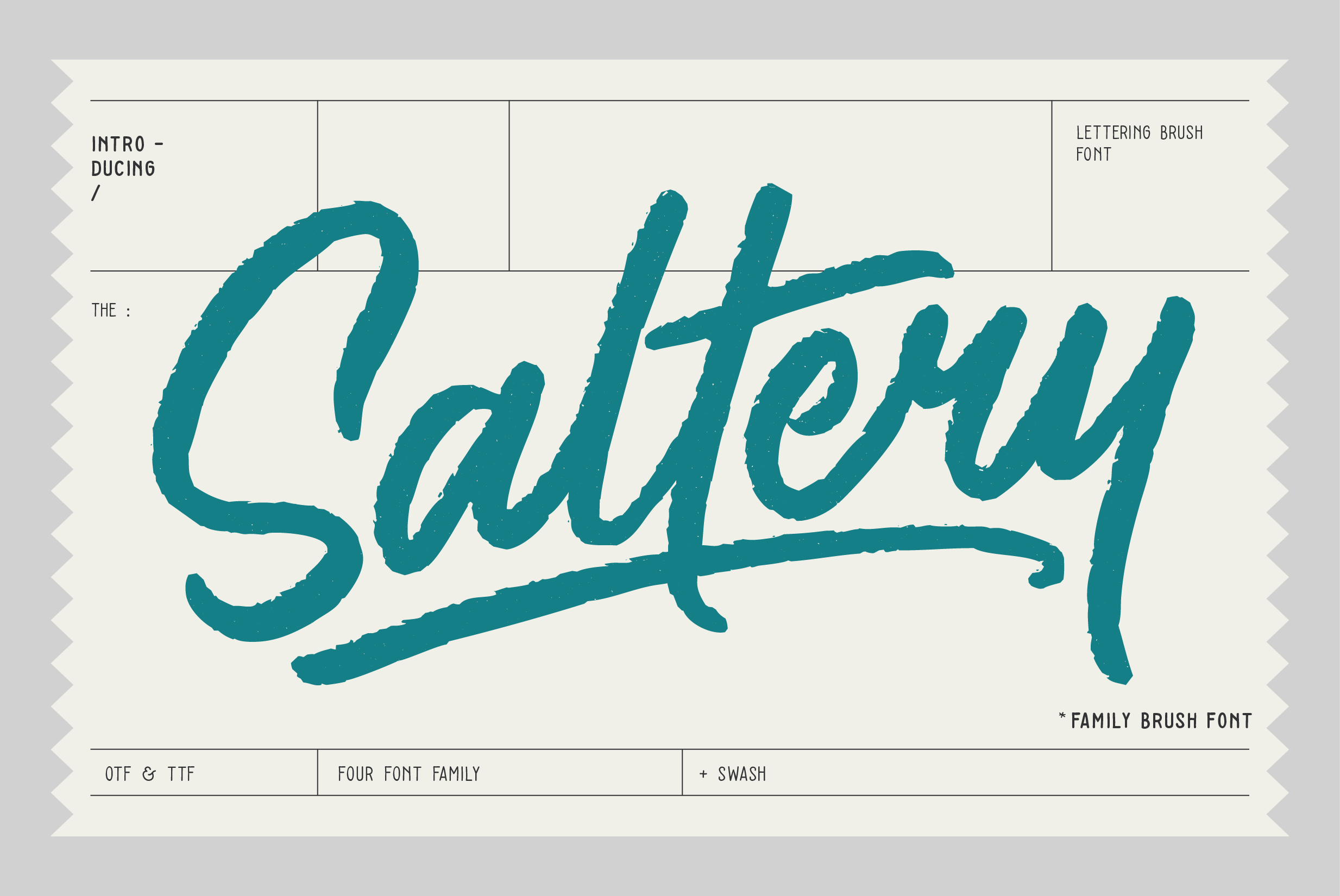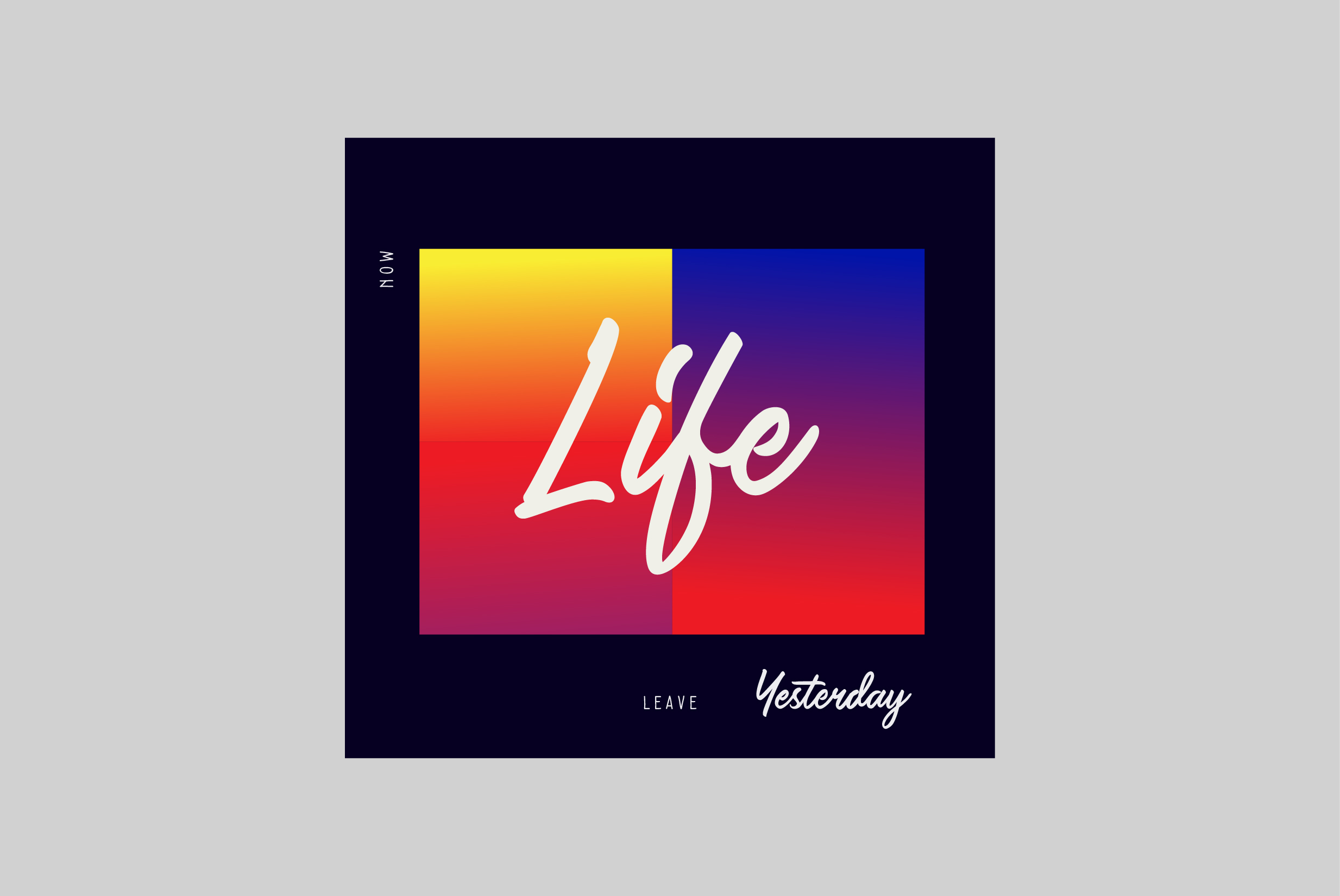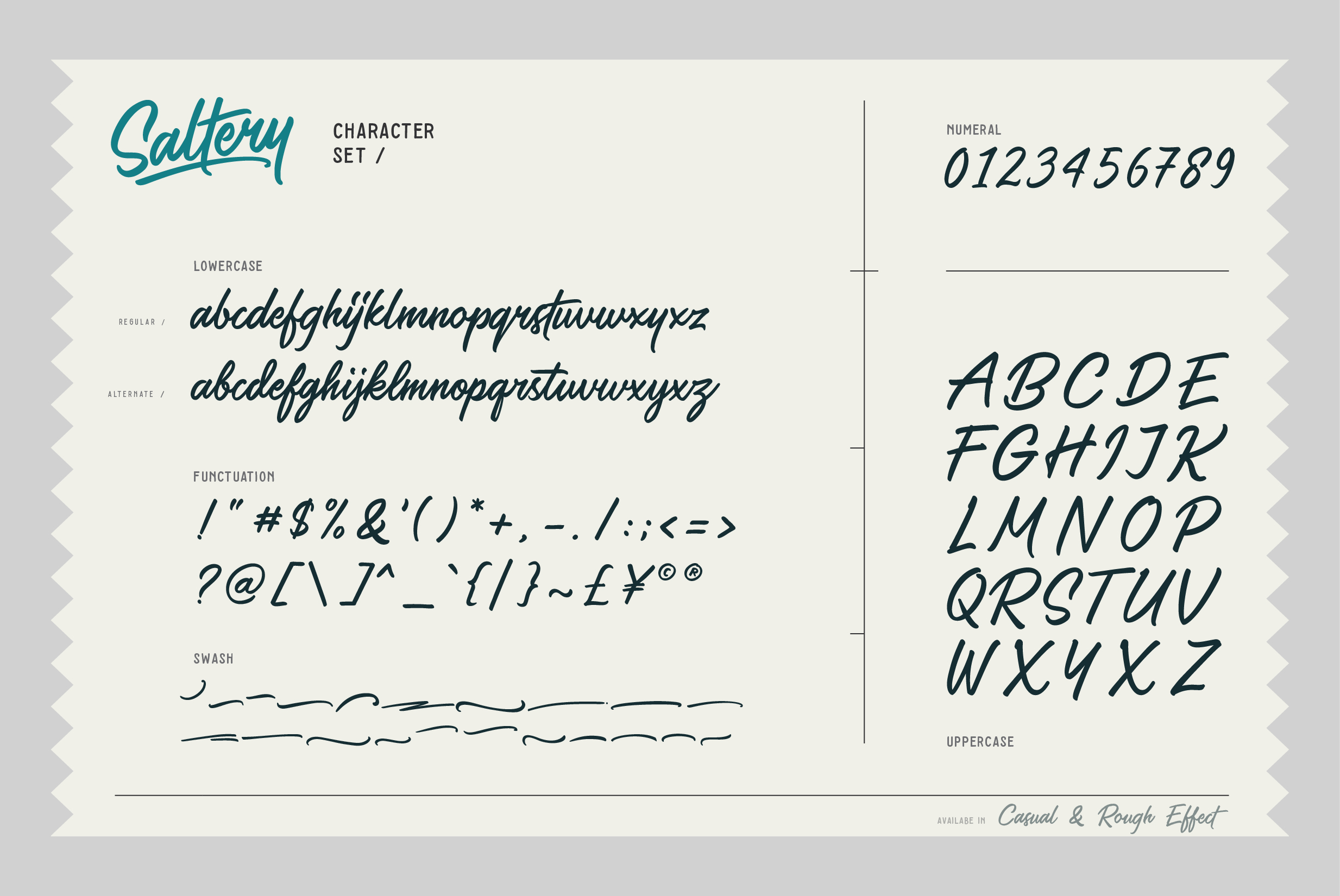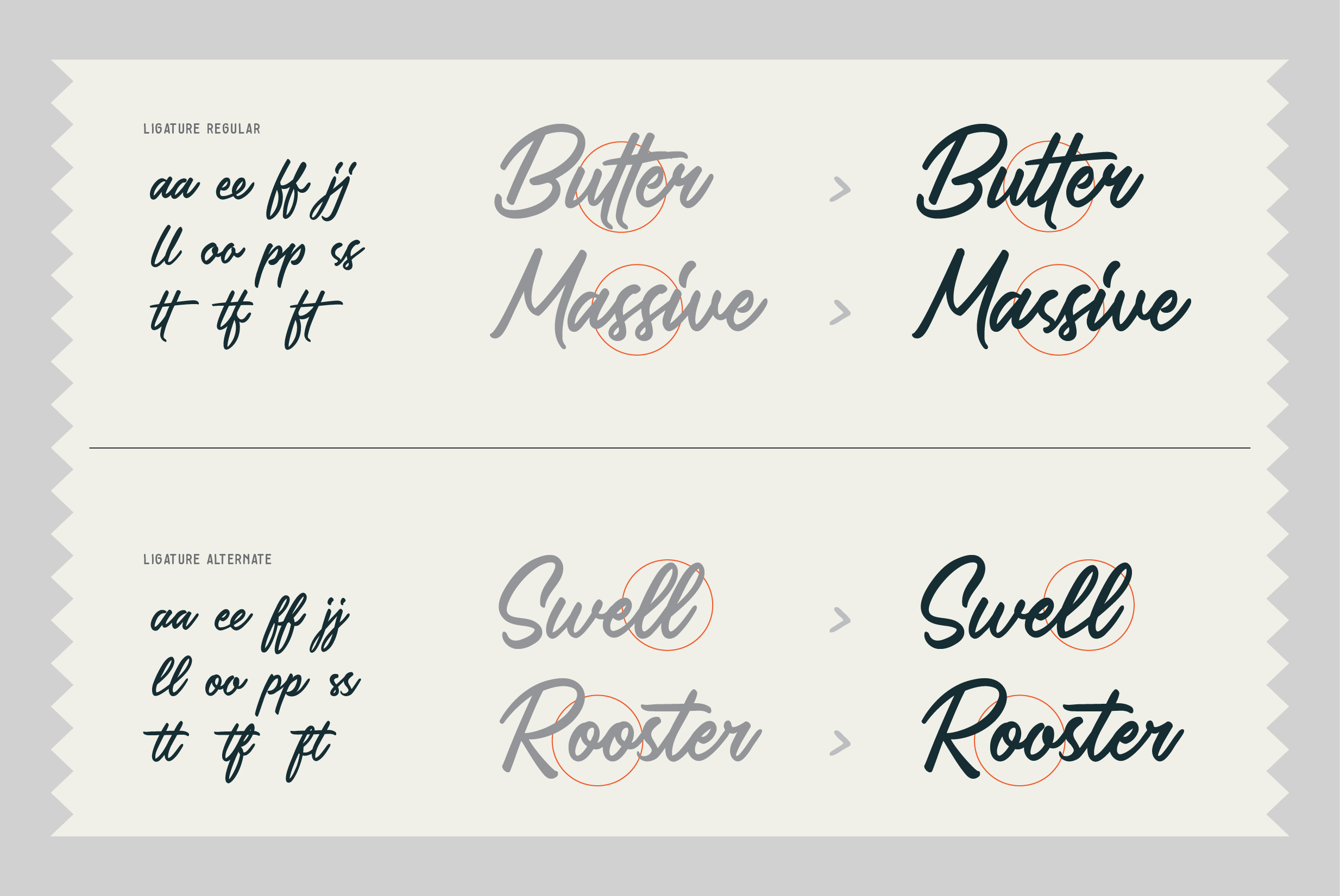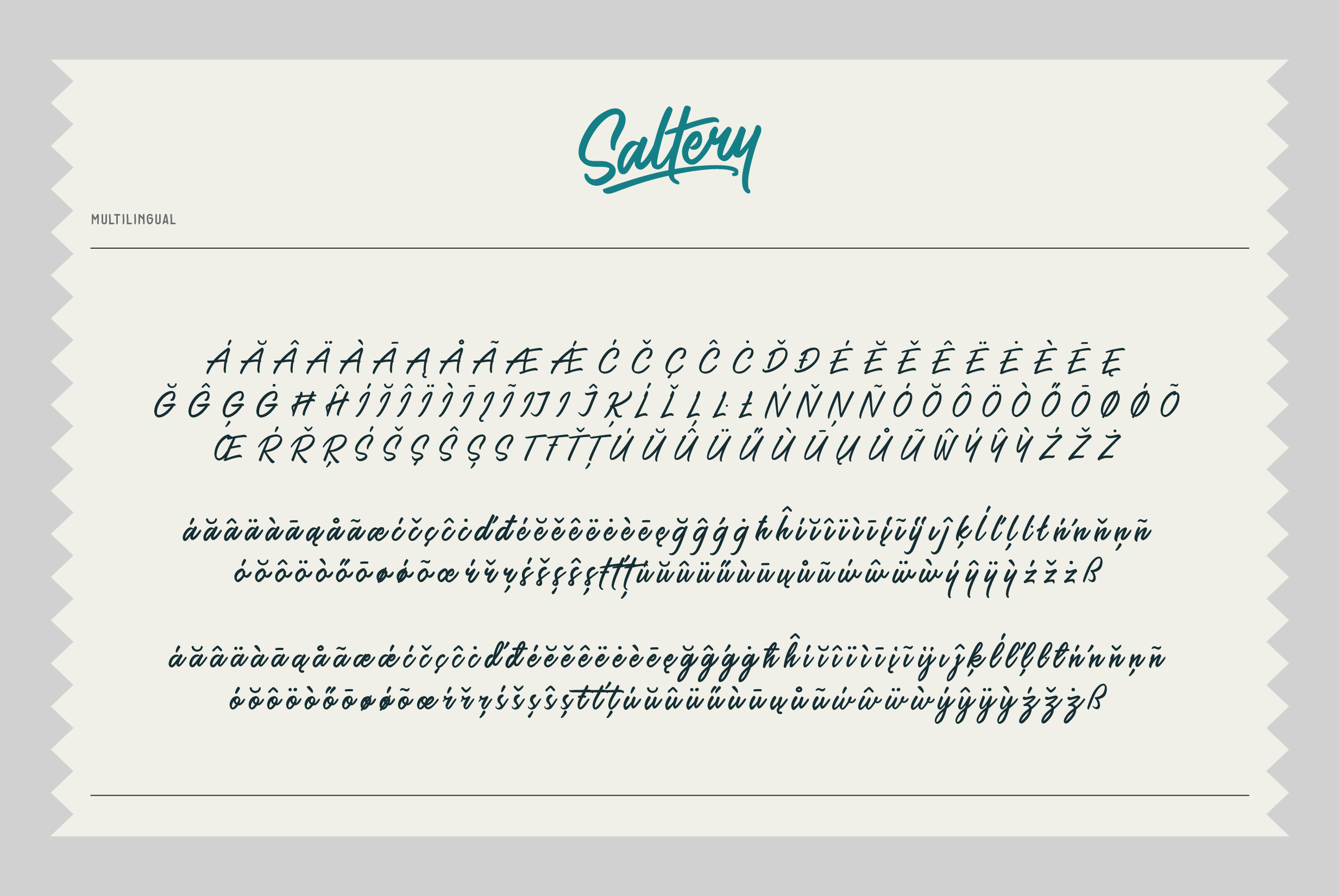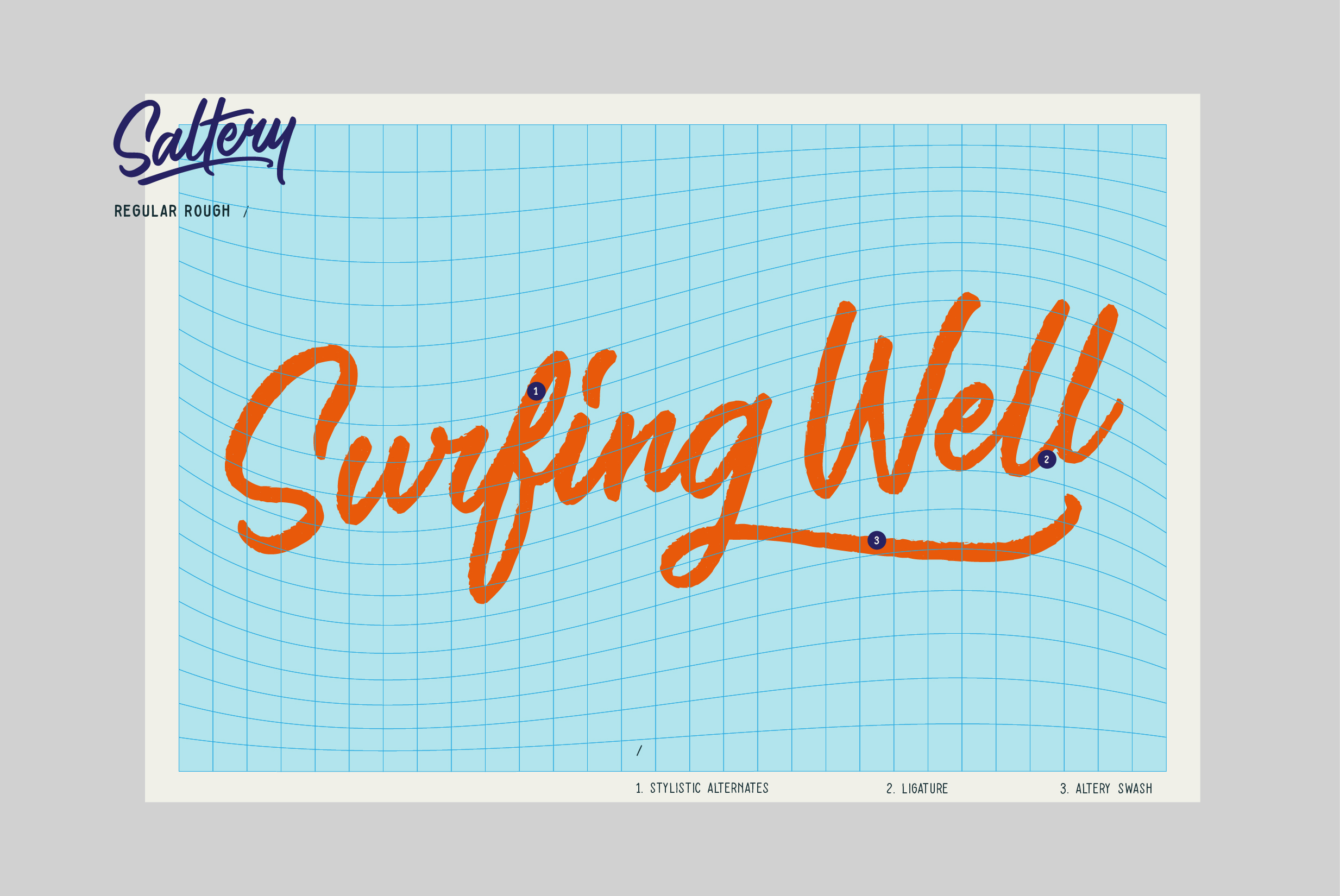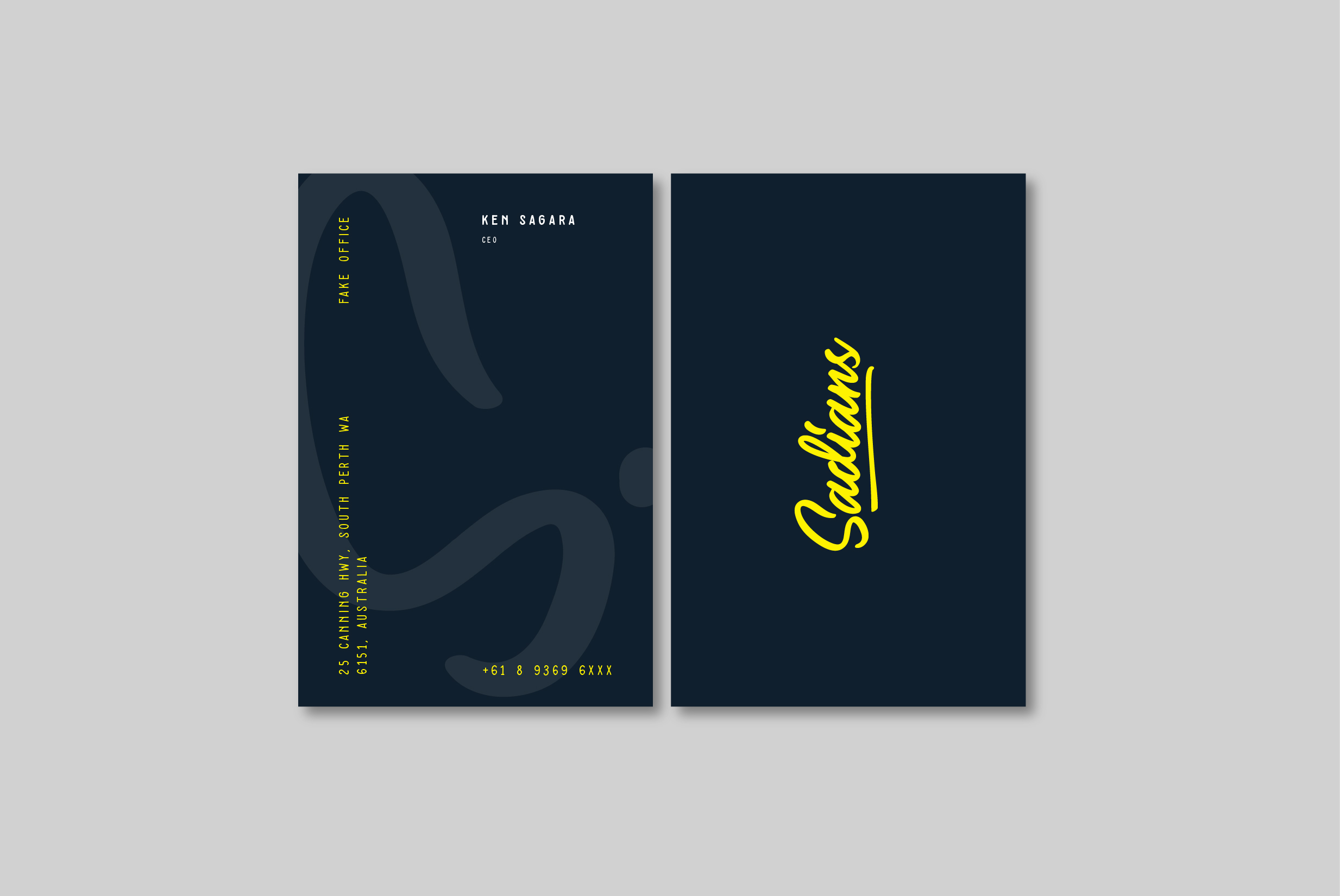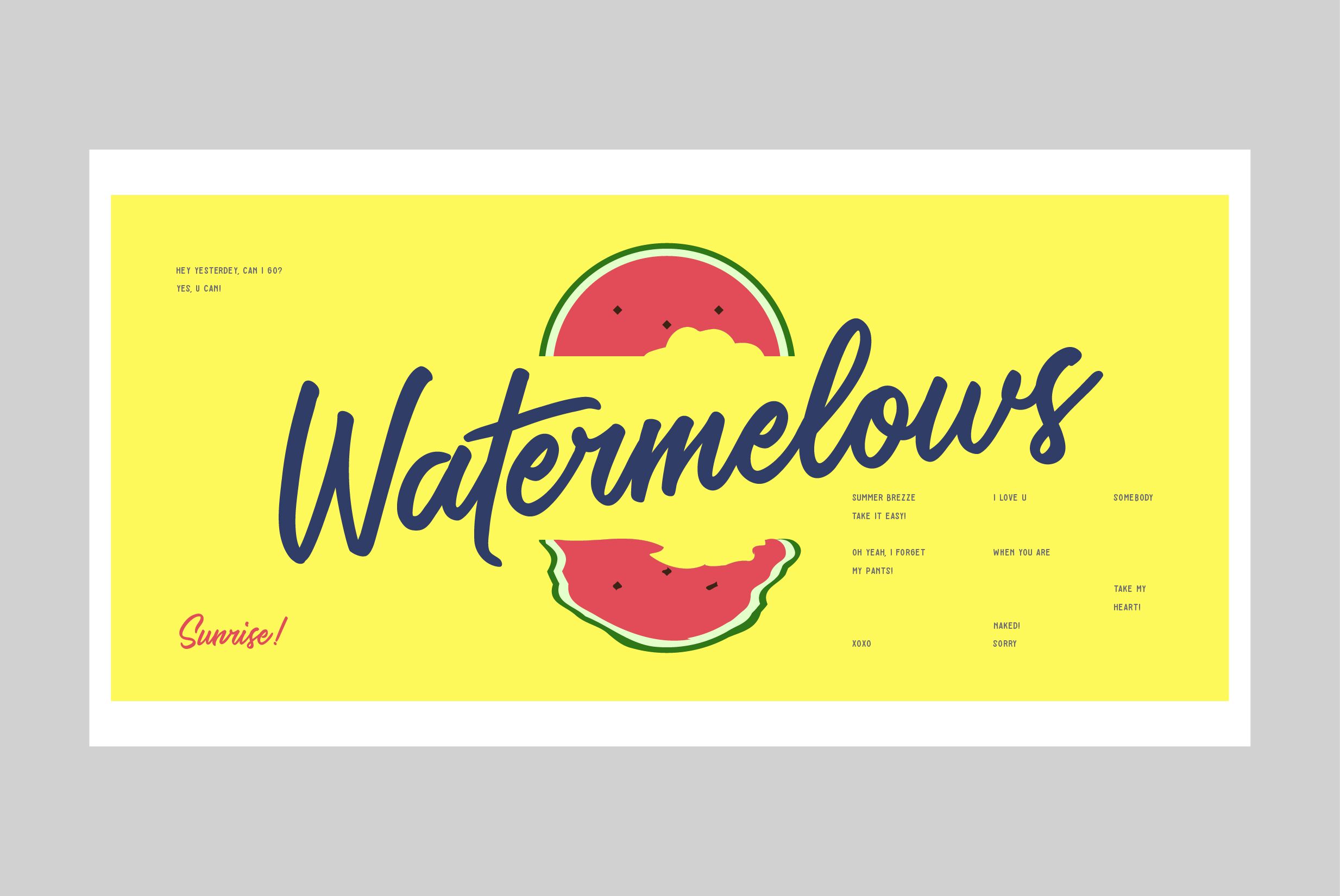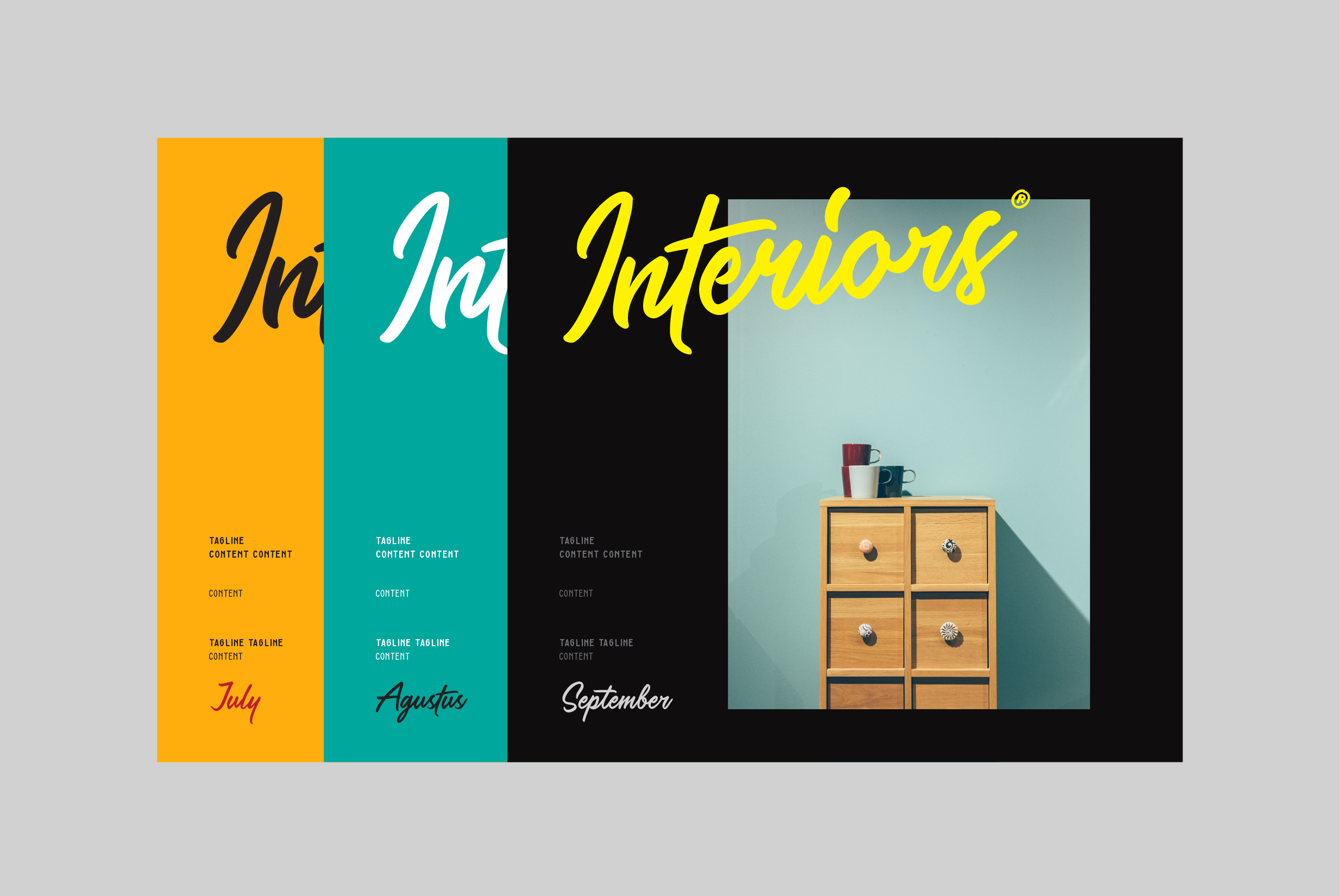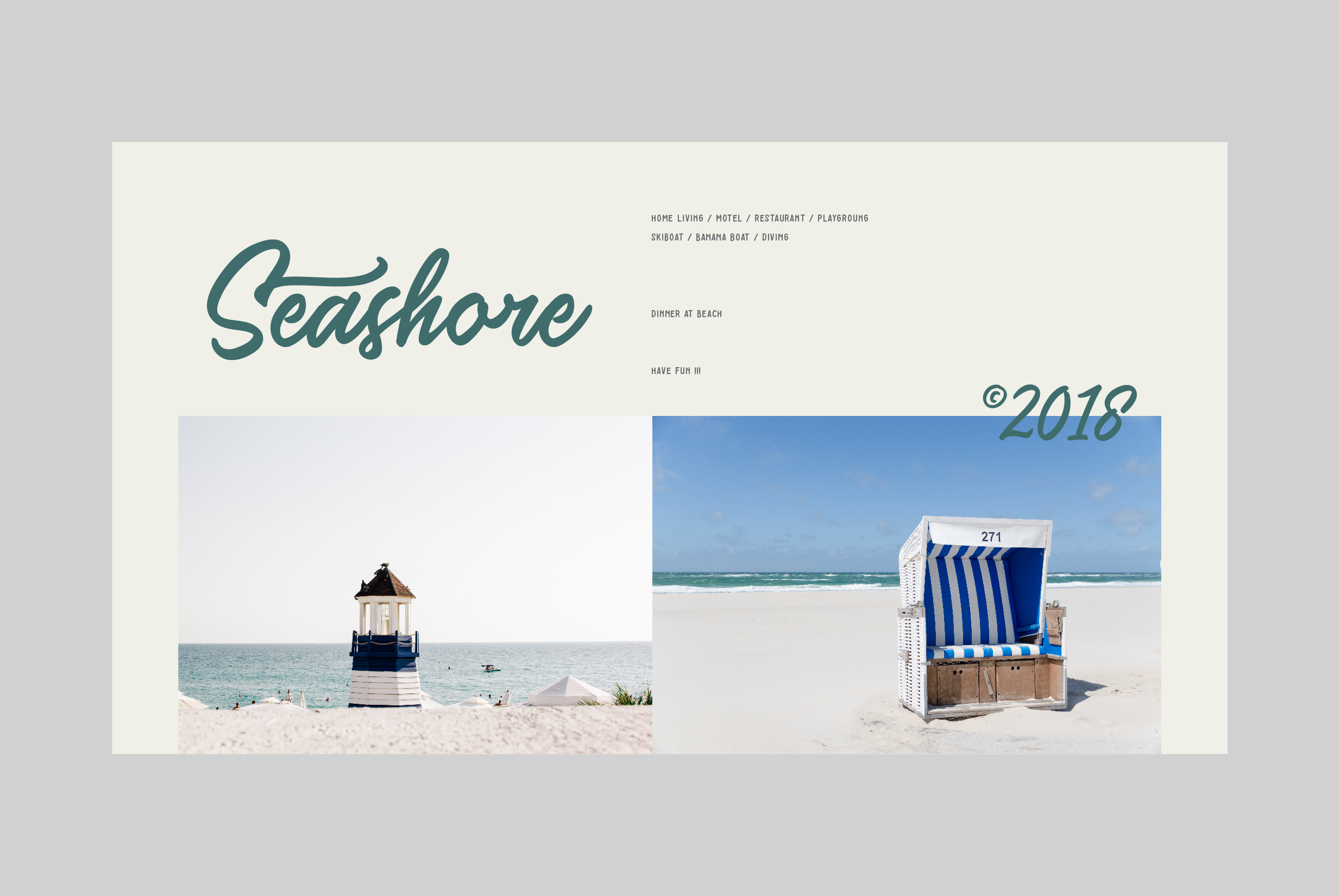
Saltery Font
About Saltery Font
Saltery is modern, fresh, casual, and stylish brush font made with precision to look natural like a brush stroke. This is a fresh and modern script, ideal for a wide range of designs.